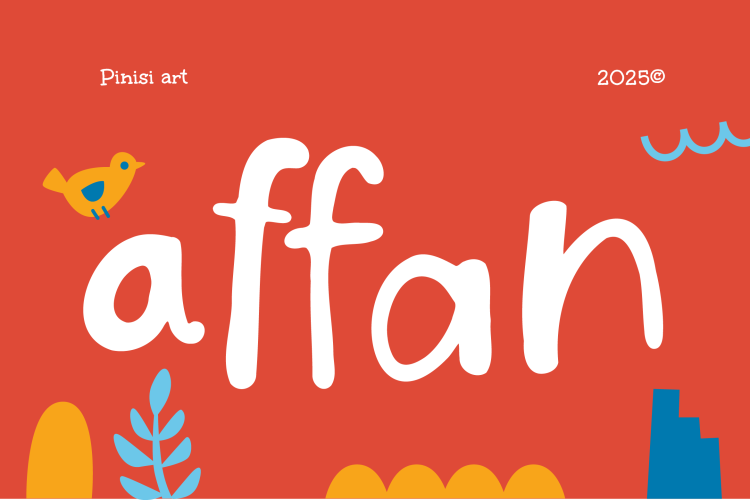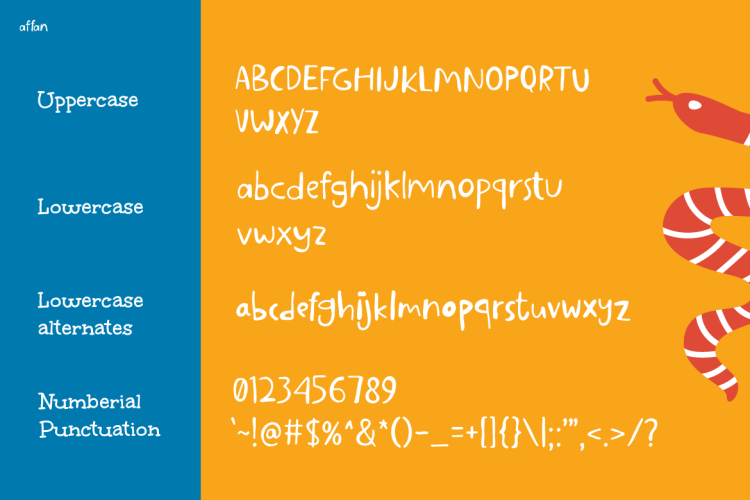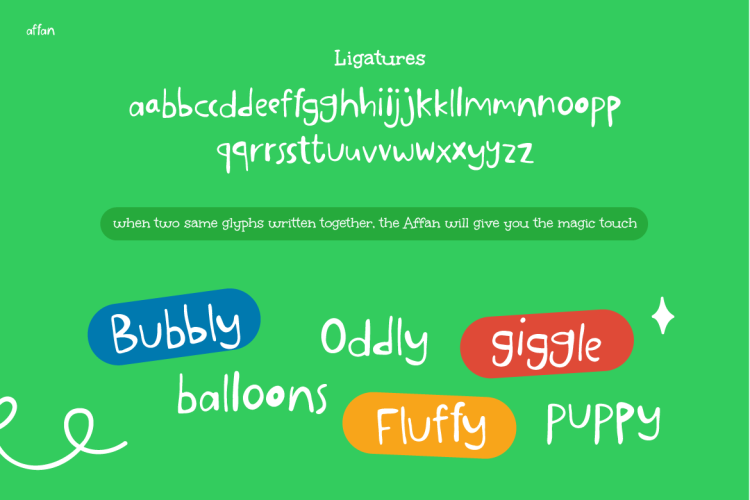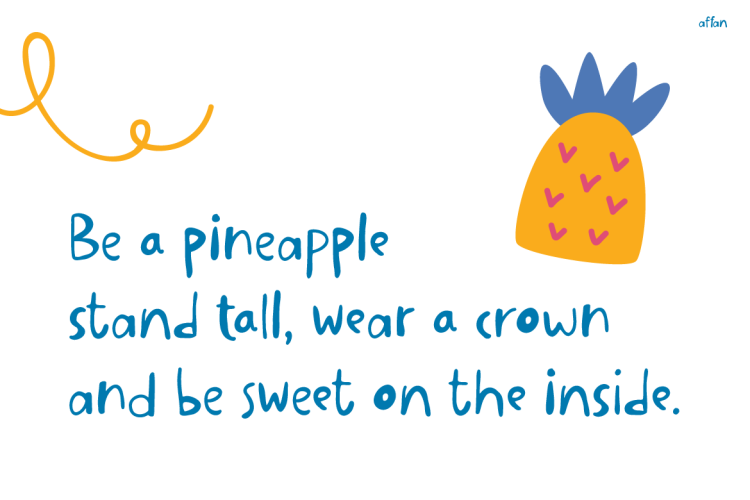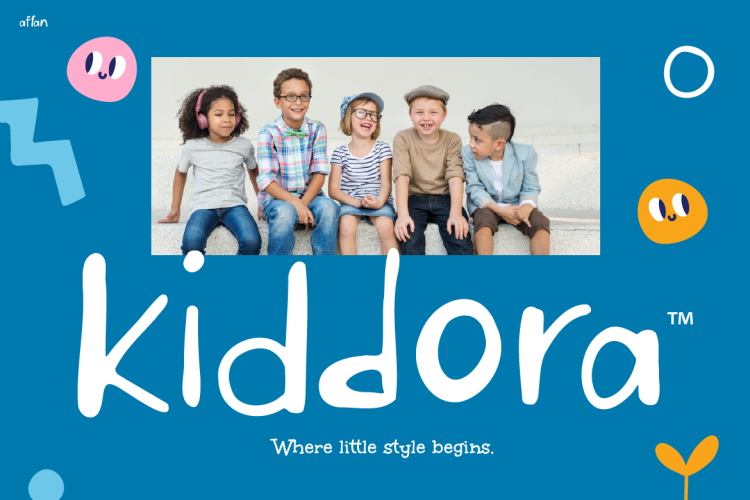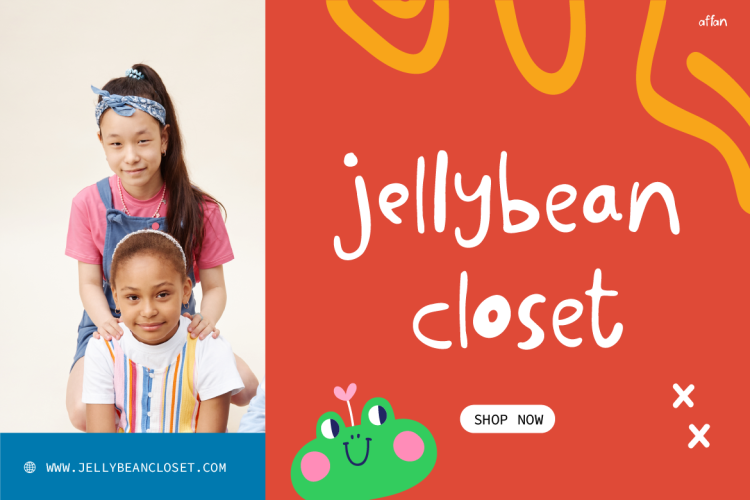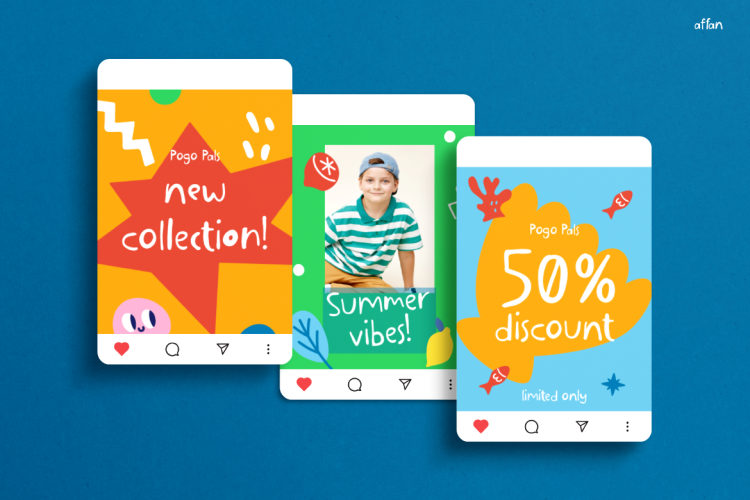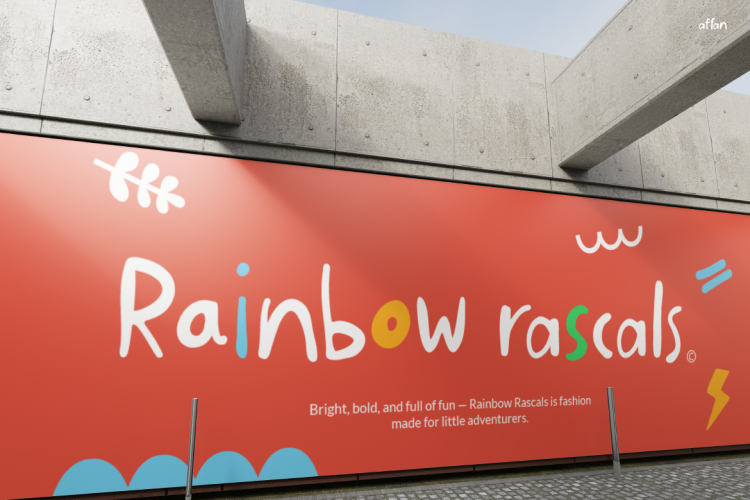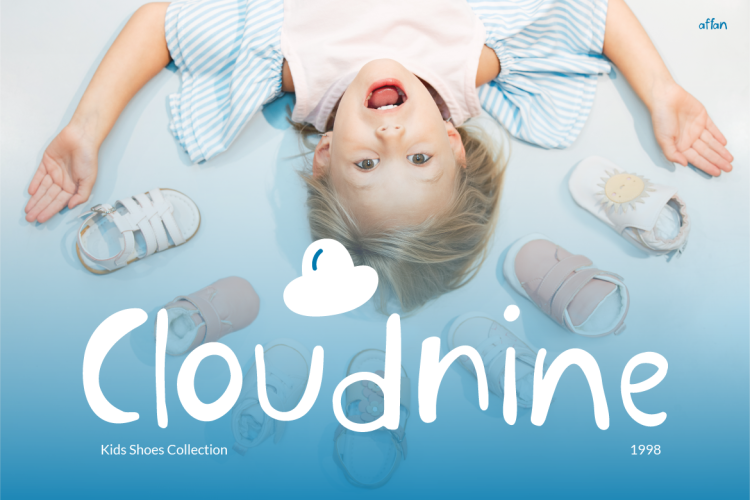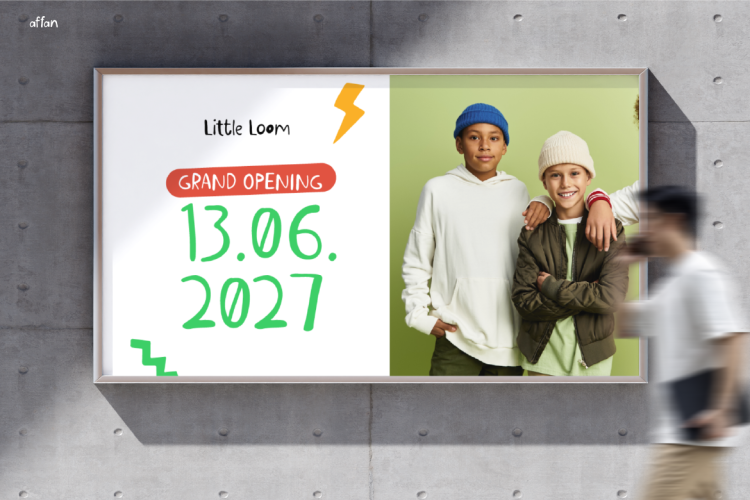
Kids Font Affan โ Playful Letters with Endless Creativity
Kids Font Affan sparks joy and creativity in every design. Its rounded strokes and smooth curves create a cheerful, friendly look. The hand-drawn style adds natural charm, and it also works beautifully across both print and digital projects. What makes it even better is the set of alternate letters, which lets you mix, match, and add variety. As a result, your designs feel unique, colorful, and full of life.
Unlike many fonts that look stiff or repetitive, Kids Font Affan gives you a playful rhythm that feels organic. Because of its clean yet creative shape, it balances fun and readability. Moreover, the alternates keep your layouts from looking predictable, so every design feels fresh. This makes it more than just a fontโit becomes a creative tool you can rely on for multiple purposes.
Why Itโs Perfect for You
Kids Font Affan gives creators the tools to make designs look friendly, exciting, and approachable. It is ideal for childrenโs brands, toy packaging, playful apps, and educational projects. Because of its warm and welcoming style, it quickly connects with kids and parents, leaving a lasting impression.
Teachers can also use it in flashcards, storybooks, or classroom boards, so learning feels more engaging. Moreover, designers benefit from the alternate characters since they add flexibility and variety without switching fonts. In addition, small businesses in kidsโ fashion, daycare centers, and online shops can rely on this font because it builds instant charm and trust. Meanwhile, marketers who create ads or campaigns for child-related products can use it to capture attention faster.
Unlock Joy in Every Design
With Kids Font Affan, you donโt just type wordsโyou create playful experiences. Each letter feels alive, colorful, and inviting. In addition, the alternates give you more creative freedom, so your projects always look fresh and original. Because of this, your work will stand out in a crowded creative space.